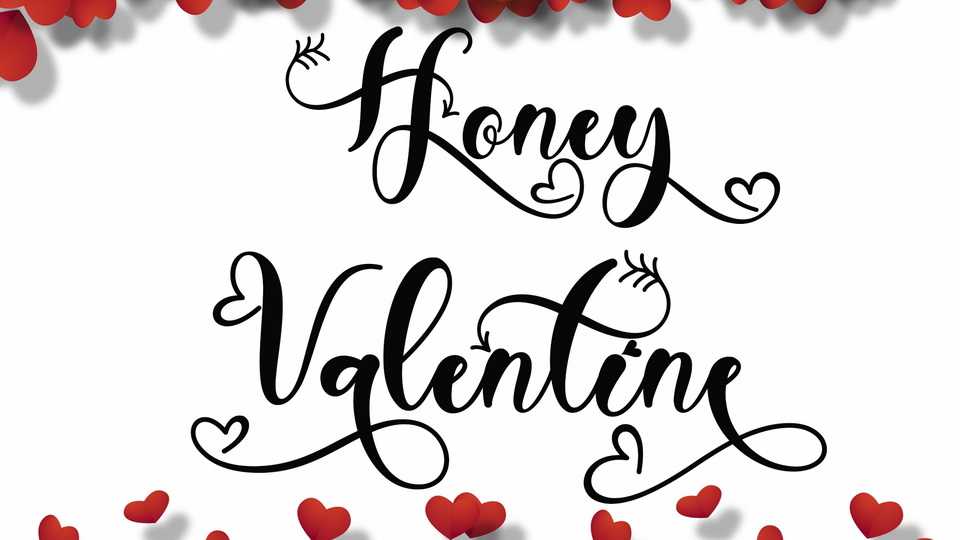
Download Honey Valentine font, a beautiful and unique calligraphy typeface. Honey Valentine font can be used for all your work and needs, especially those related to Valentine’s Day, weddings, winter, Christmas, photography, engagement, promotions, and others.